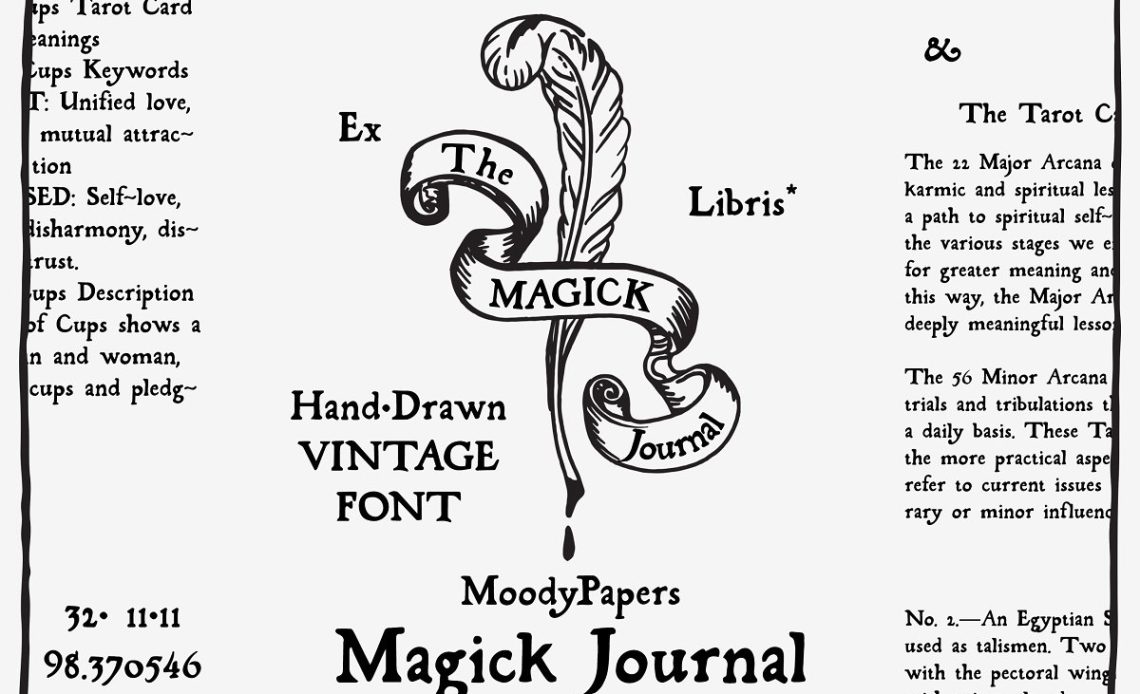
Are you looking for the best font to give your vintage t-shirts a wizardly touch? Look no further than Magick Journal - the hand-drawn serif font created by Maria Zepol. With its magical and mystical design, this font will transport your customers to a whimsical world where anything is possible.
Magick Journal is more than just a font, it's a work of art. Each letter is hand-drawn with intricate detail, making it a truly unique addition to your collection. And with the included SVG file, you'll have even more flexibility in your designs.
But don't just take our word for it - let the font speak for itself. The enchanting curves and delicate strokes of Magick Journal will captivate your audience and leave them spellbound. Whether you're designing a logo, a poster, or a t-shirt, this font is sure to make a statement.
So why settle for a mundane font when you can elevate your designs with Magick Journal? It's the perfect choice for anyone who wants to add a touch of whimsy and wonder to their work.